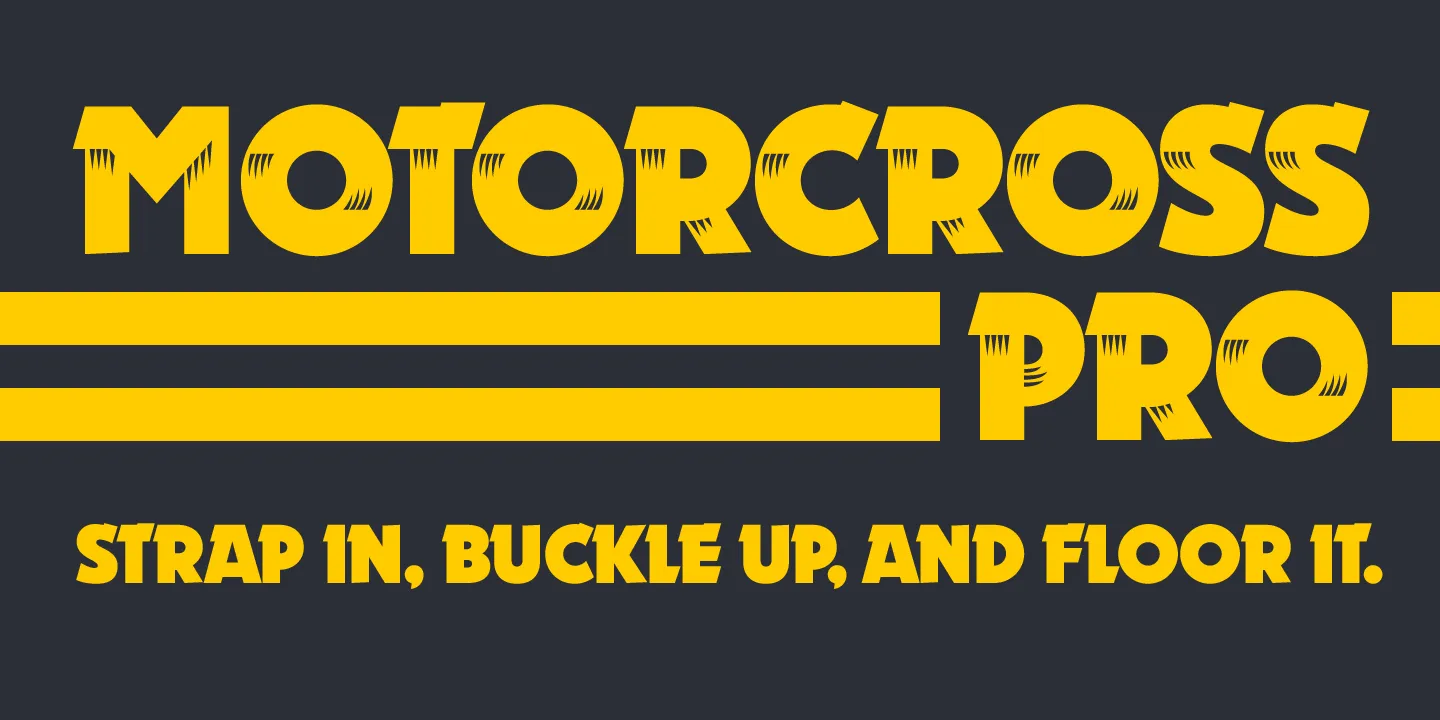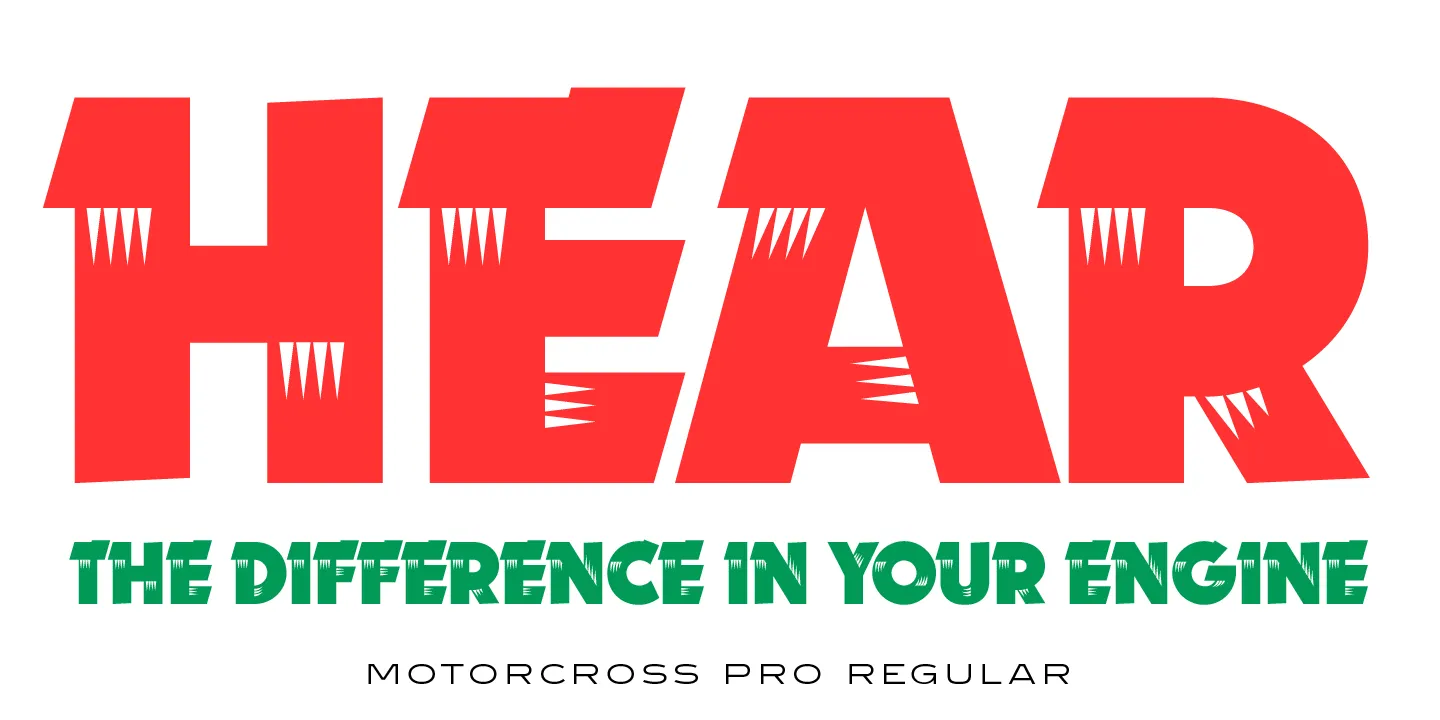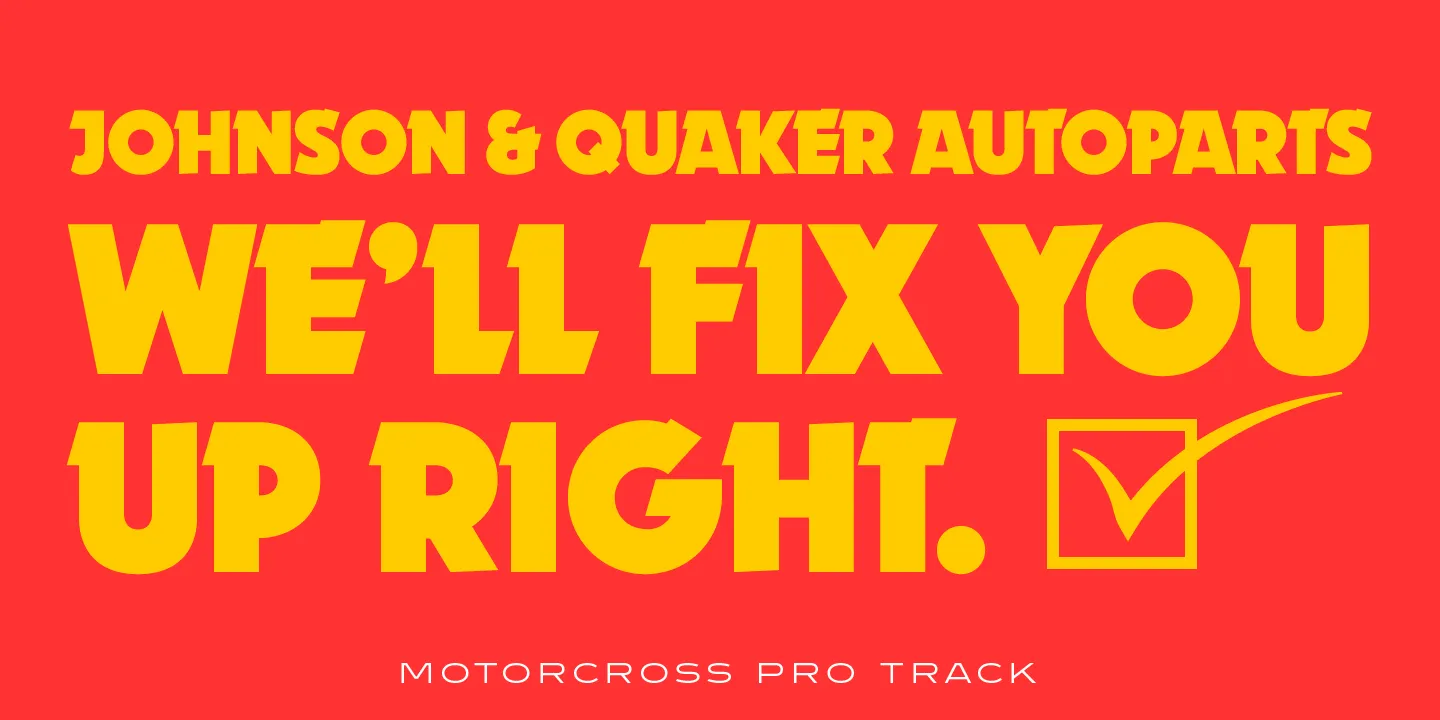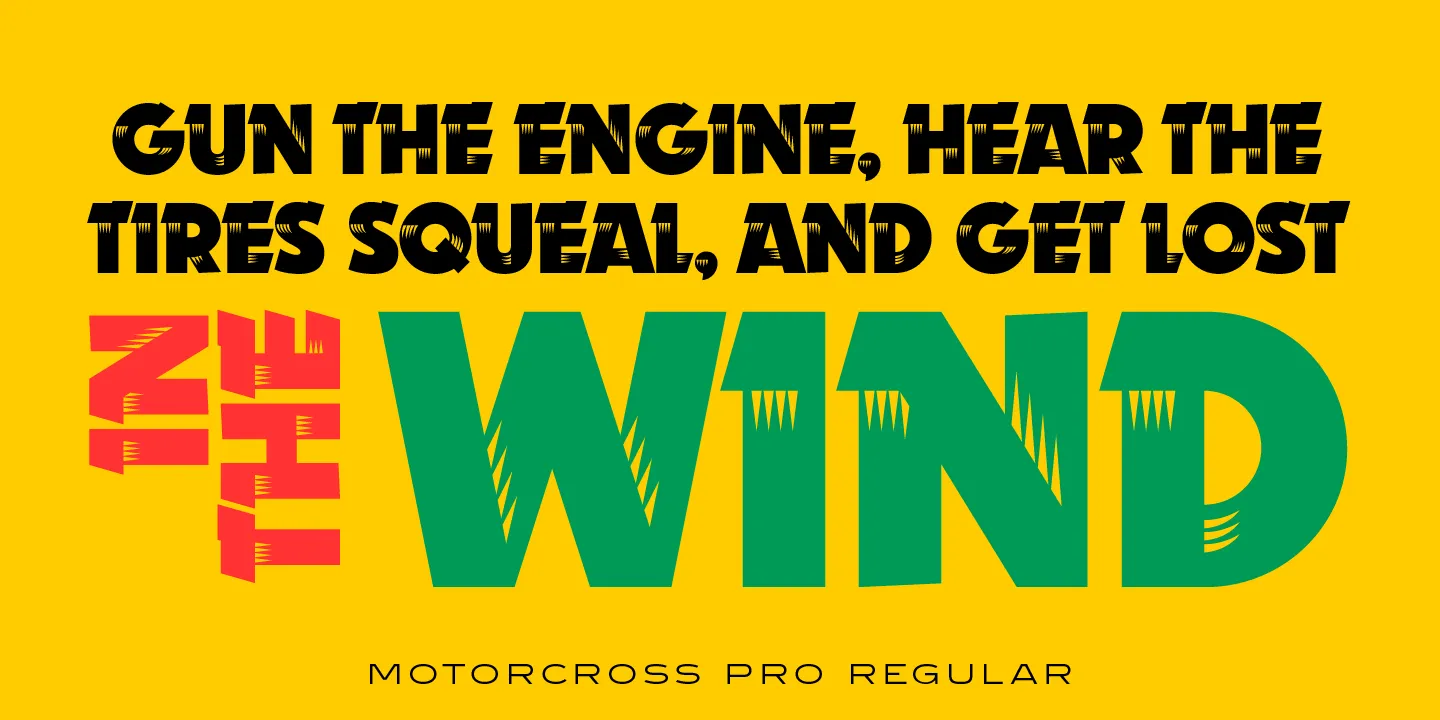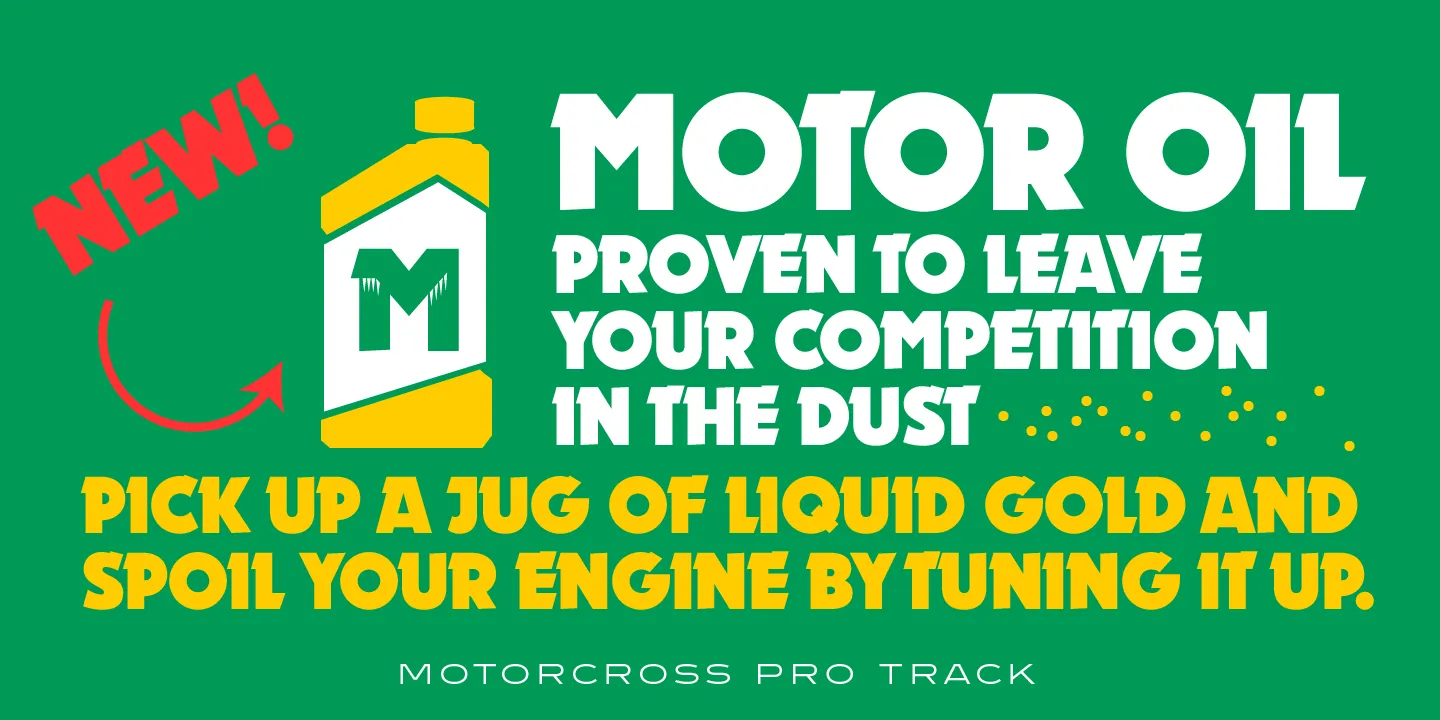
Motorcross Font Family
Motorcross is a modified high-octane geometric sans serif. In 2007, Steve Jackaman designed the family as a digital revival of the Ludwig & Mayer typeface “Motor” from 1930. Motorcross Regular has dramatic shading, while Track is strongly solid and with angled terminals and a monolinear structure, it makes headlines attention-grabbing! Whether designing posters, album covers, magazines, sports equipment, or party invitations, it is ready to give you full-throttle, non-stop energy.